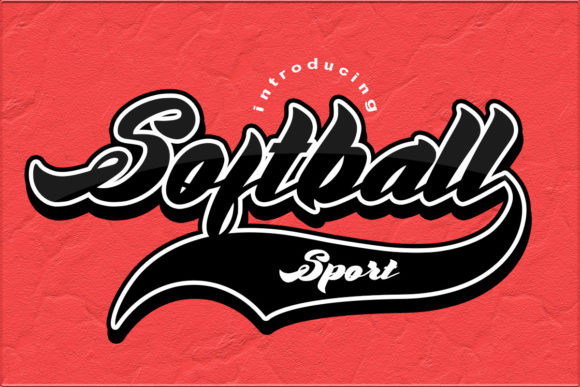
Get ready to add a sporty and retro vibe to your designs with Softball Font, the perfect addition to your collection! Created by Al Mughni Studio, this cool and stylish script font is perfect for those looking to create eye-catching designs that demand attention.
With its handwritten style, Softball Font is both unique and versatile, making it perfect for a wide range of design purposes. Whether you're creating a logo, designing a brochure, or creating a stunning web design, this font has got you covered.
But that's not all - Softball Font is also perfect for those looking to add a personal touch to their creations. With its PUA encoding, you can easily access all of the glyphs and swashes, allowing you to create truly unique and personalized designs that stand out from the crowd.
And with its retro and sporty style, Softball Font is perfect for creating designs that evoke feelings of nostalgia and fun. Whether you're creating t-shirt designs, mockups, invitation cards, wedding cards, flyers, posters or anything in between, Softball Font is the perfect choice for those looking to create designs that are both captivating and engaging.